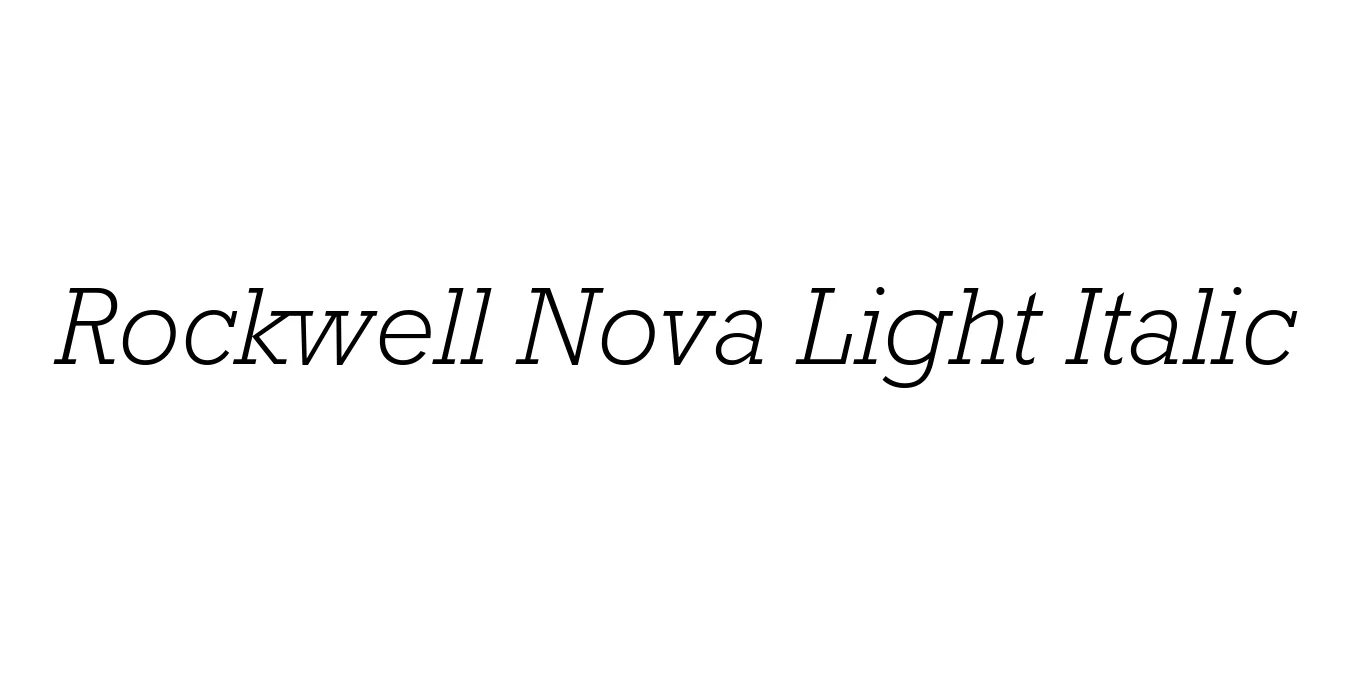
Rockwell Nova Light Italic
Designed by Monotype Design Studio
| Category | Slab Serif |
| Designer | Monotype Design Studio |
| Similar Fonts | Clarendon, Memphis, Stymie, Josefin Slab, Archer |
Rockwell Nova Light Italic is a refined extension of the classic Rockwell slab serif family, which was originally produced by the Monotype Corporation in 1934 under the guidance of Frank Hinman Pierpont. The Nova version is a modern digital expansion that optimizes the typeface for contemporary screen and print resolutions, offering a wider range of weights and styles. This specific variant provides a lighter, more elegant footprint than the traditional bold slab serifs, maintaining the iconic geometric structure while introducing a sophisticated lean that suggests movement and precision.
Characterized by its geometric construction and distinctive slab serifs, the Light Italic weight excels in providing contrast within a design hierarchy. It retains the sturdy, industrial aesthetic of the original 1910 Litho Antique inspiration but softens it through its slender stroke width. This makes it an exceptional choice for editorial designers who need a typeface that is both authoritative and graceful, ensuring that emphasis is delivered with professional clarity across both digital and analog platforms.
Rockwell Nova Light Italic Best Uses
Perfect for pull quotes, captions, and secondary headers in magazines.
Ideal for minimalist logo designs and high-end corporate identity projects.
Excellent for subheadings and stylized body copy that requires distinction.
Effective for brochures and promotional materials where a balance of strength and elegance is needed.